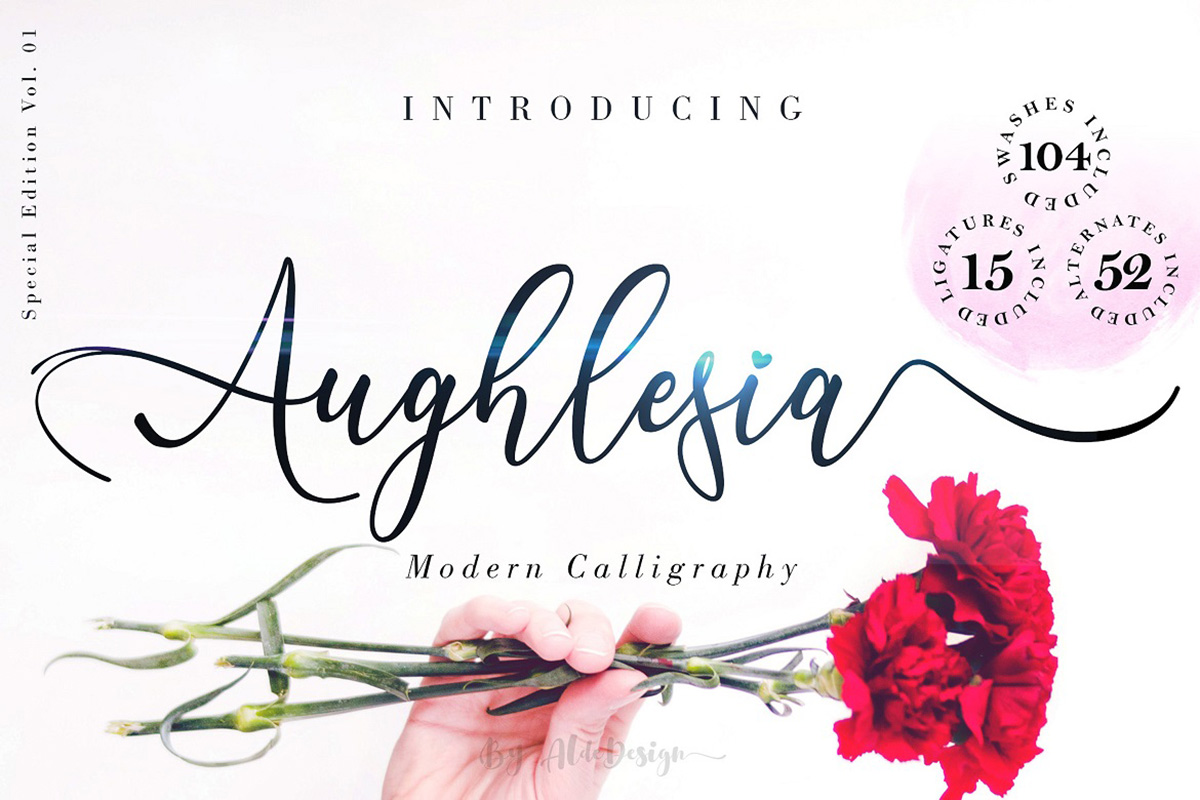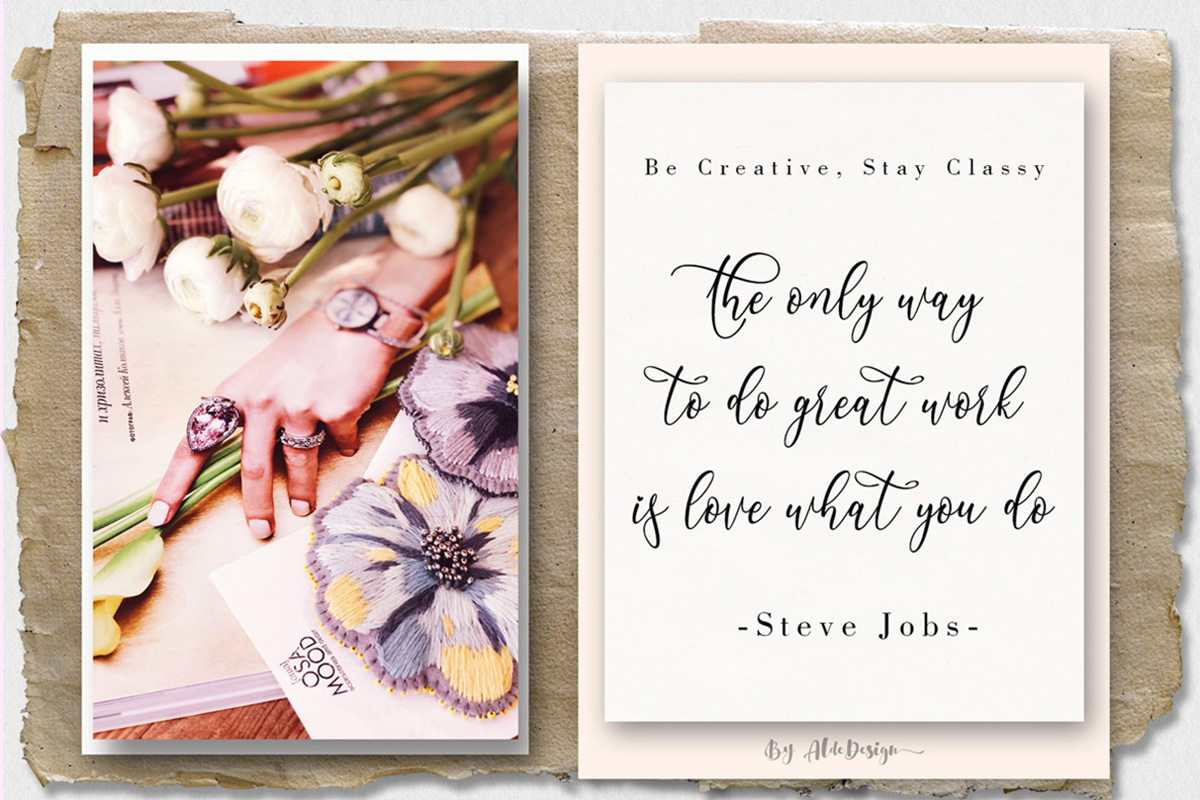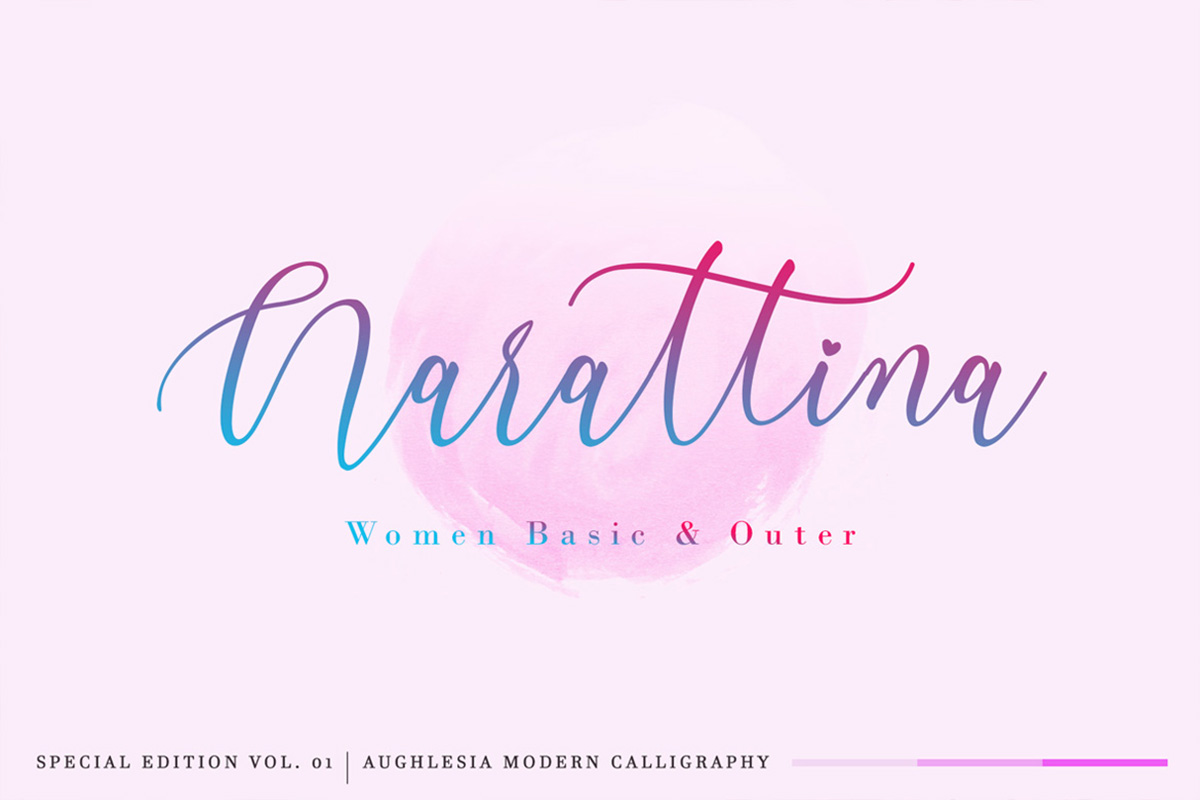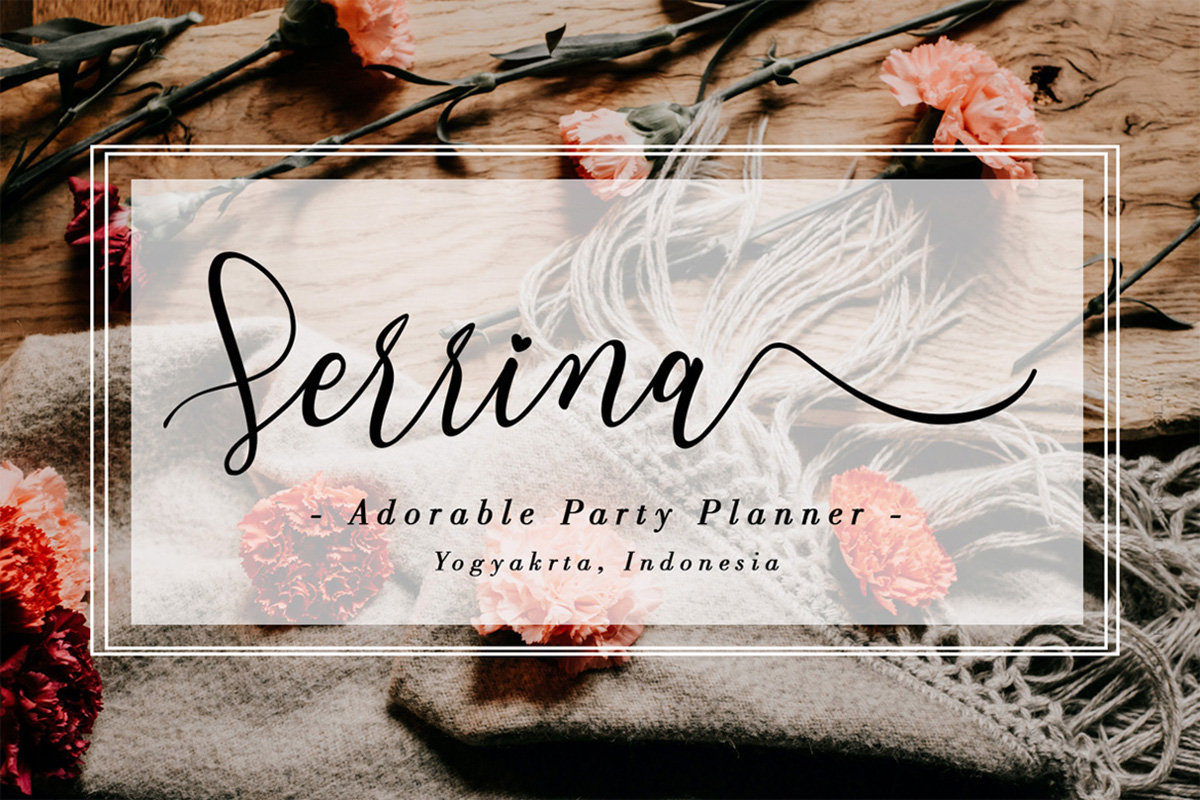
Aughlesia Free Font
Aughlesia Free Font is a modern handwritten font that brings its own unique style to any design project. It will elevate a wide range of design projects to the highest level, be it branding, headings, wedding designs, invitations, signatures, logos, labels, and much more. This free typeface was designed by a talented Alde Saputro. If you like it don’t forget to check out the full version.